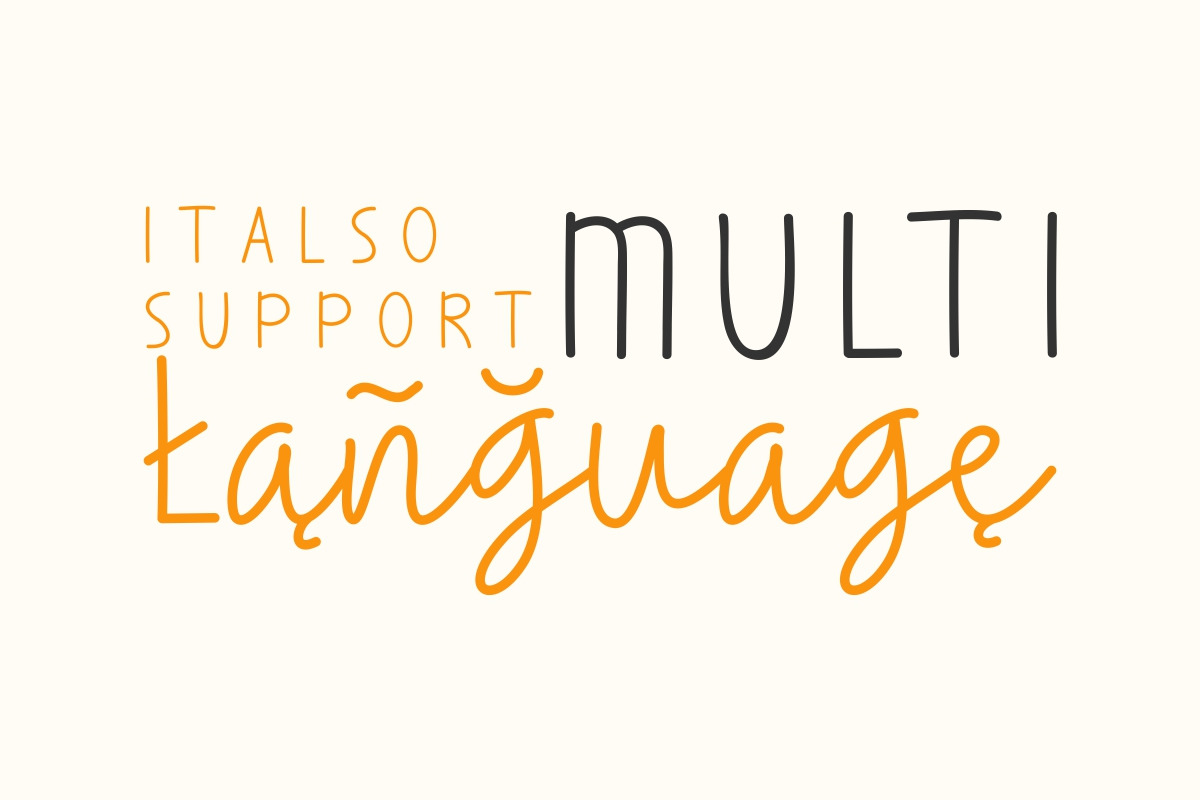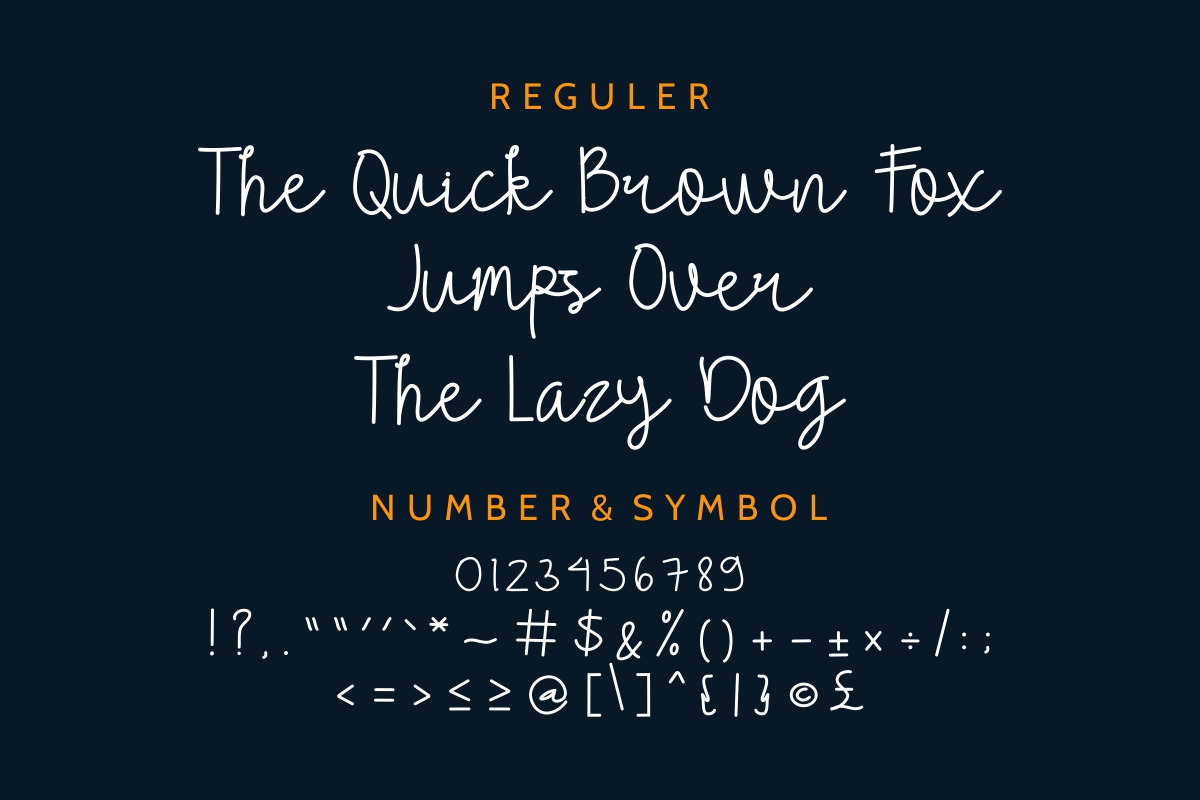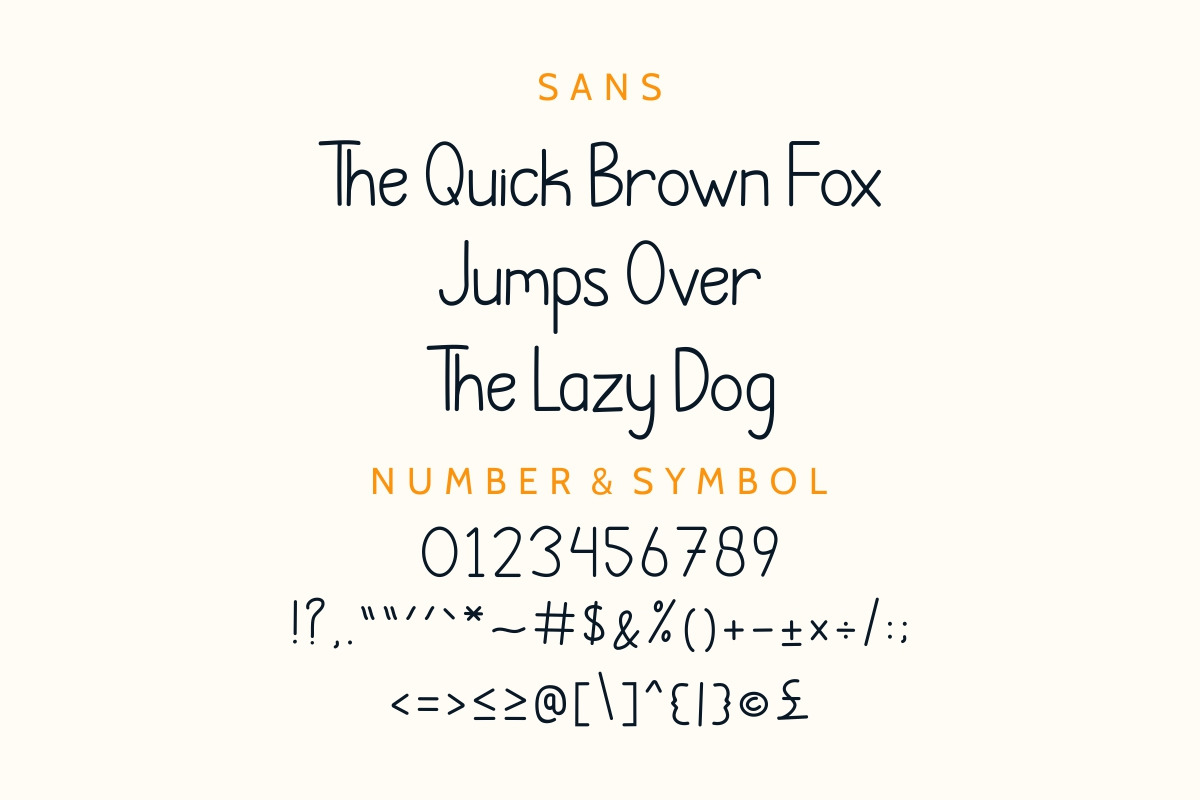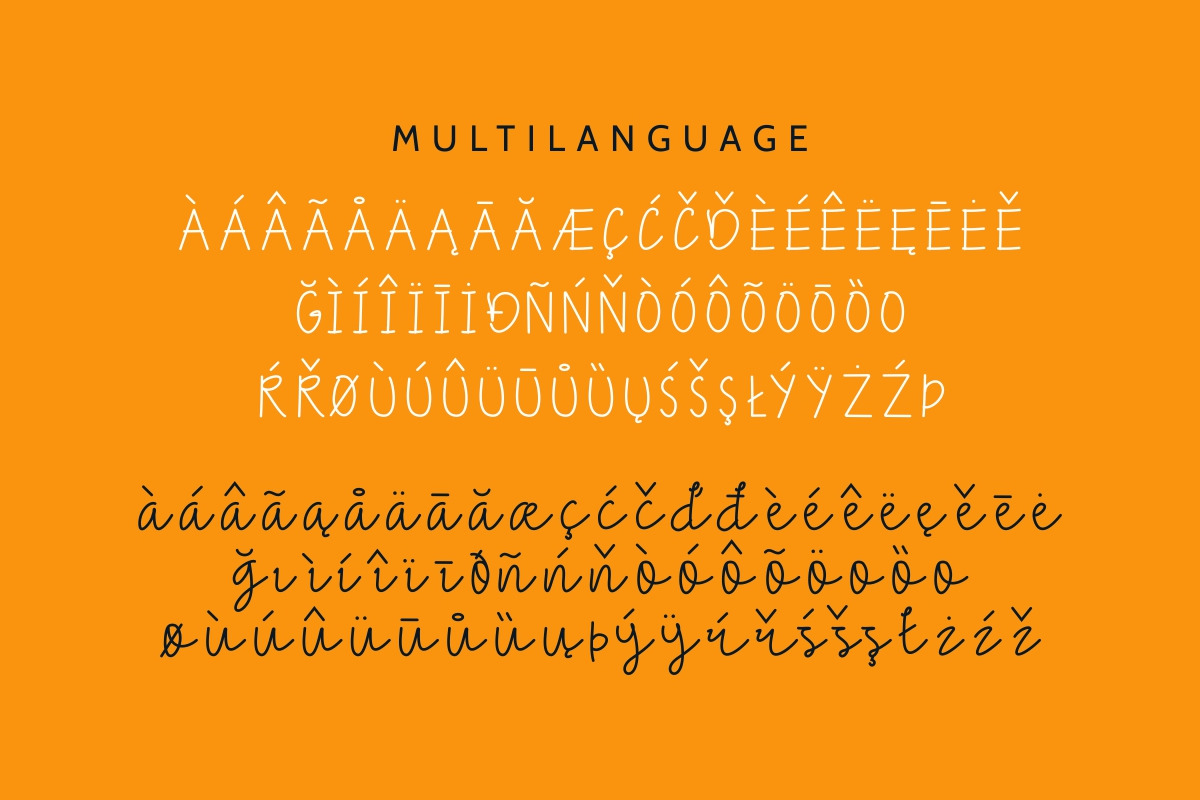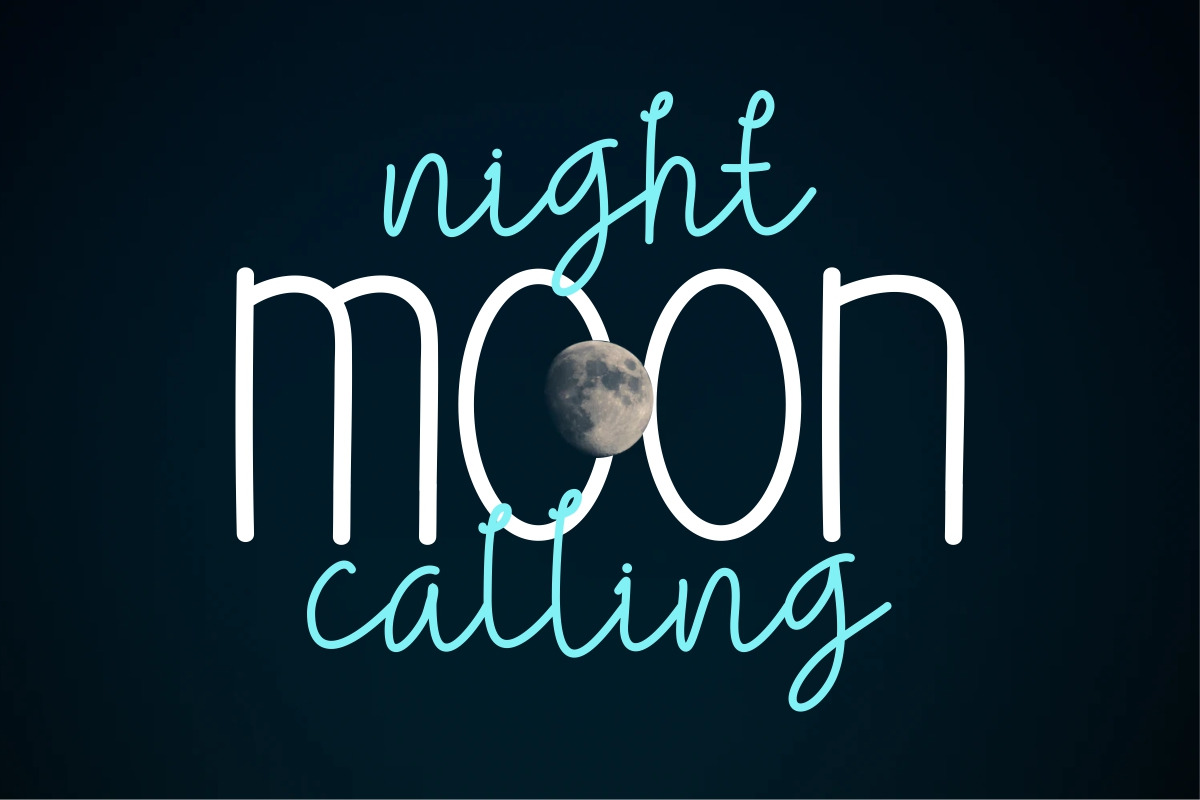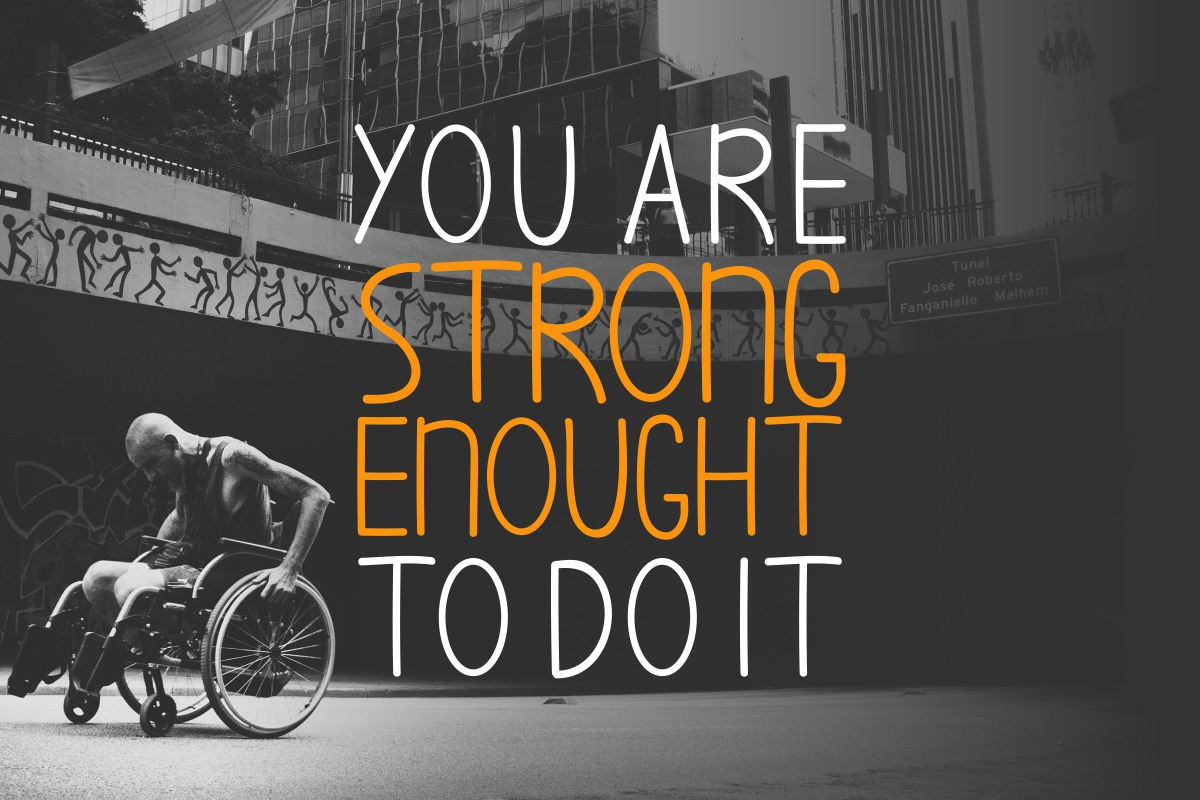
Sandwell Font Duo
Sandwell is a new font duo. It has an exclusive, elegant and stylish glyphs. It also support multilanguage accents
Two Styles : Regular Script and Sans look display. You can work on many cases : wedding, celebration, birthday, kids, personal brand, food and beverage, technology, photography, sales marketing etc